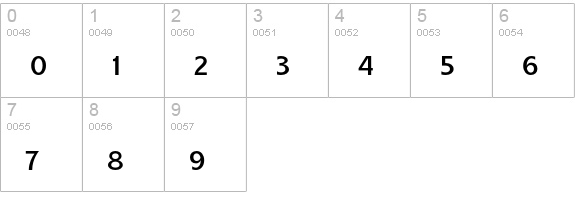
Glametrix Bold is a strong, high-contrast variant in the Glametrix typeface family \xE2\x80\x94 well suited to headlines, attention-grabbing titles, and strong calls-to-action.
Glametrix Bold is a captivating and eye-catching font that is sure to make a bold statement in any design project. With its sleek and modern appearance, this font exudes confidence and sophistication. The bold and powerful letterforms of Glametrix Bold demand attention and command the viewer's gaze. This font is perfect for headlines, titles, logos, and any other application where you want to make a strong visual impact. Its clean lines and sharp edges give it a contemporary and edgy feel, making it the ideal choice for projects that require a touch of glamour and modernity. One of the best things about Glametrix Bold is that it is freely available to download at FontsMarket.com. This means that you can easily access and use this font in your designs without any hassle. Whether you are a professional designer or just someone who enjoys experimenting with typography, Glametrix Bold is a must-have addition to your font collection. With its versatile and striking design, Glametrix Bold is suitable for a wide range of design projects. Whether you are creating a poster, a website, a magazine layout, or any other visual medium, this font will instantly elevate your design and give it a touch of sophistication and elegance. So why wait? Download Glametrix Bold for free at FontsMarket.com and unleash your creativity with this stunning font. Let Glametrix Bold take your designs to a whole new level and make a lasting impression on your audience.